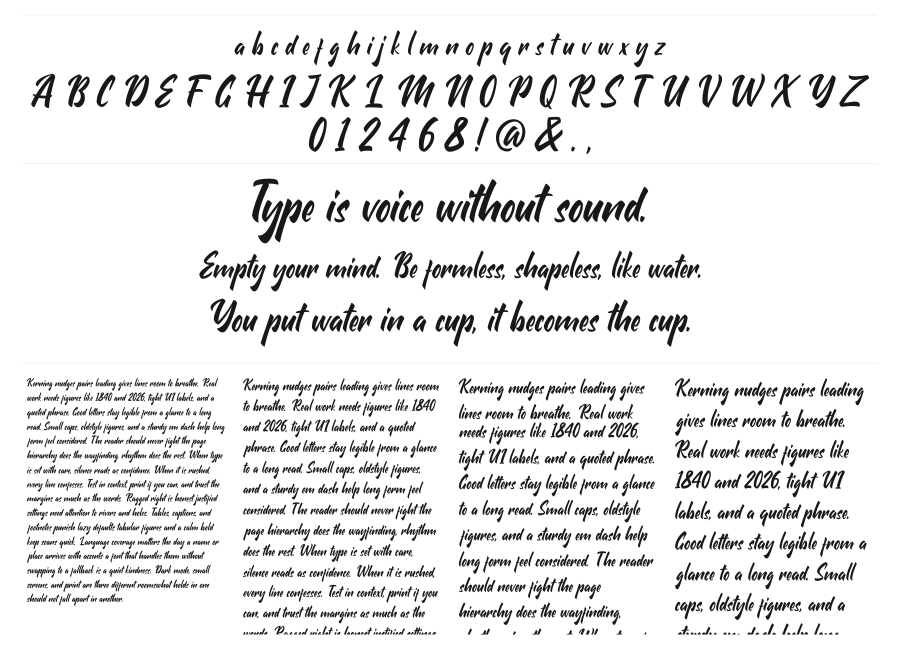
Kintapani
Kintapani is a bold brush script from Typehand Studio with the loose, inky energy of fast hand-lettering. Thick strokes swell and taper sharply into hairline transitions, giving the connected letters a natural, uninhibited quality. It carries a lot of personality at large sizes, fitting naturally into branding, packaging, and social content.